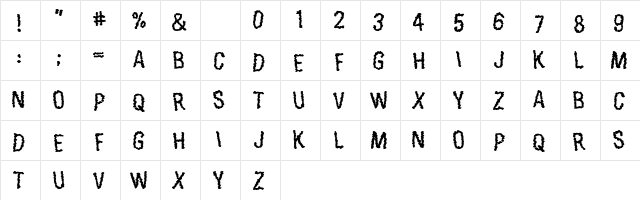
Exoneration Regular Free Font
Exoneration Regular
Exoneration Family
Design Context for Exoneration
Exoneration is a composed and adaptable typeface that performs quietly and consistently across a wide range of design contexts.
Pro Tip: Use Exoneration in both headline and body roles to test its range before committing to a single application.